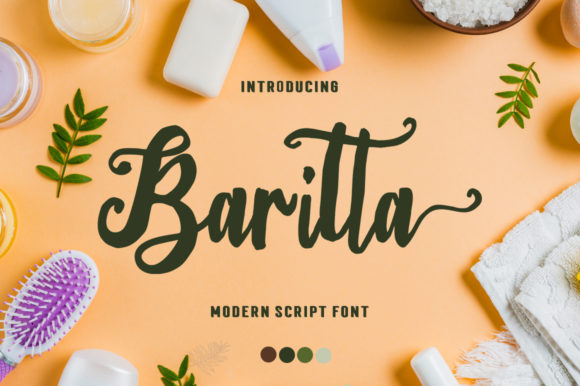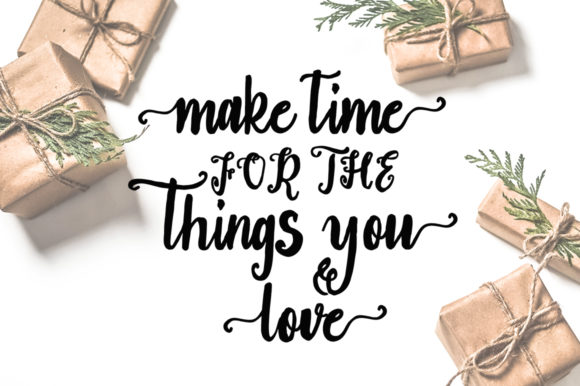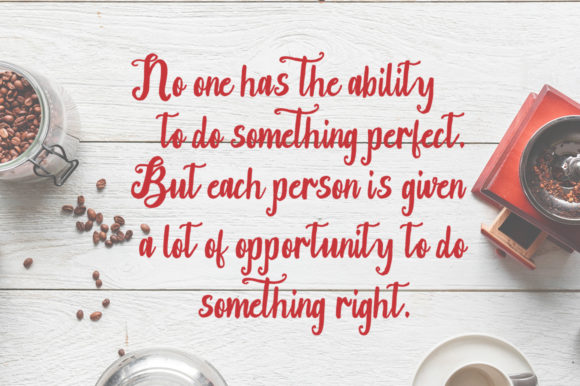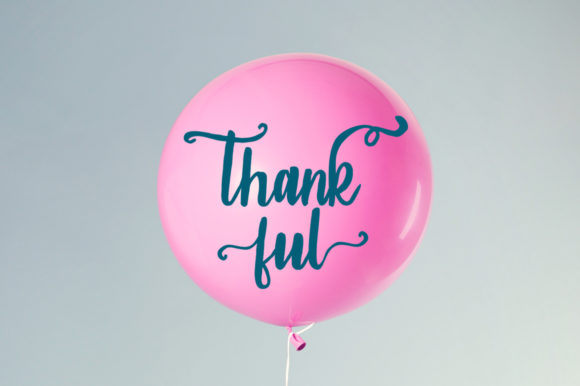
About Baritta Font
Baritta is elegant and cute but also authentic. This versatile calligraphy font has a wide range of applications ranging from crafting designs to headlines and is guaranteed to add a playful touch to your next design.
This font is PUA encoded which means you can access all of the gorgeous glyphs and swashes with ease! It also features a wealth of special features including alternate glyphs and ligatures.